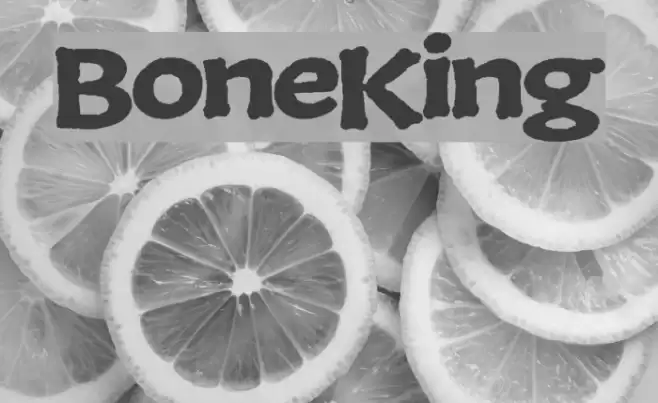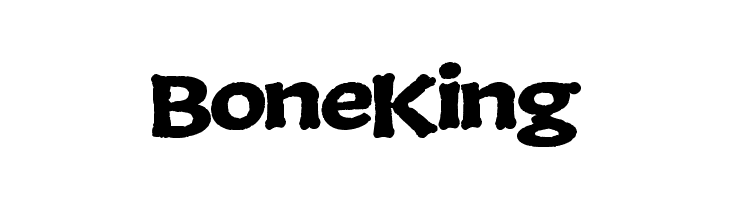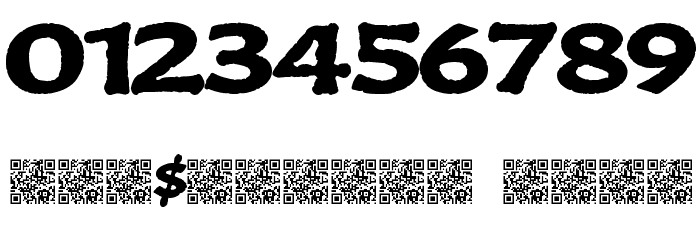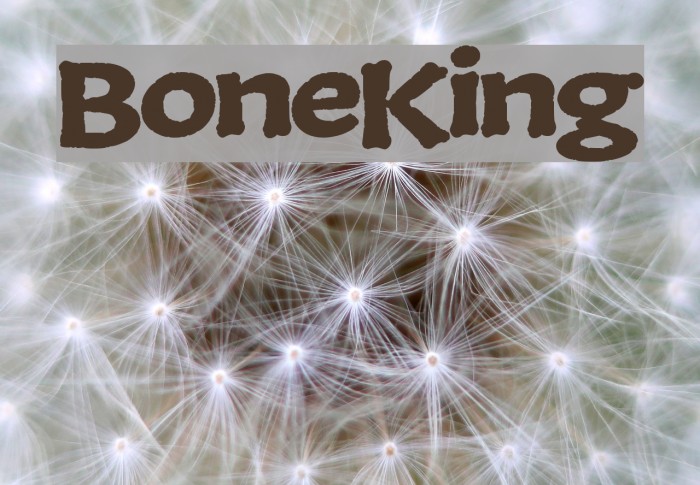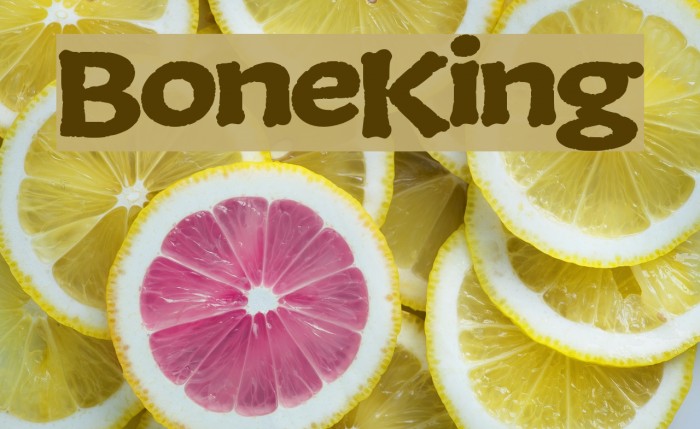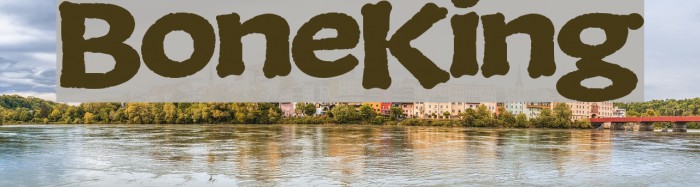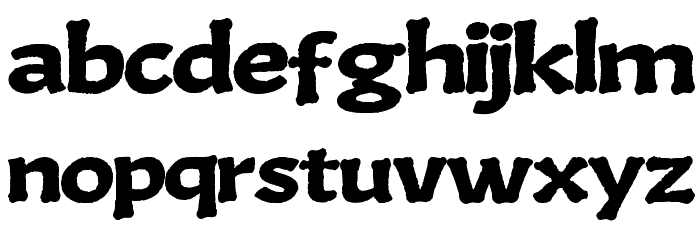
BoneKing Font
BoneKing Description
This font features a bold, rugged style with a hand-drawn appearance, characterized by its thick, uneven strokes and slightly irregular edges. The uppercase and lowercase letters maintain a consistent weight, giving the font a cohesive look. The numbers and special characters follow the same design principles, ensuring uniformity across all elements. Its distinctive, organic feel makes it stand out, while the boldness of the characters ensures readability even at smaller sizes. The font's unique style is reminiscent of vintage or rustic themes, making it suitable for projects that require a touch of personality and flair.
A bold, hand-drawn font with rugged, uneven strokes and a vintage feel from Uncategorized fonts.
- Proposed Projects: Ideal for branding, posters, headlines, and any design requiring a rustic or vintage touch.
- Overall Style: Vintage